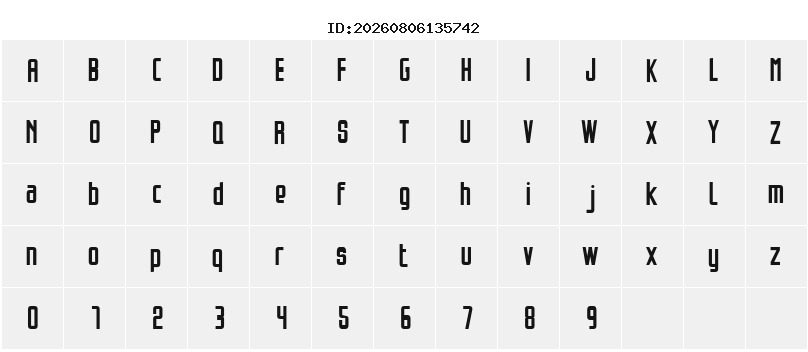
Opeln2001 Szeroki.ttf is a modern, elegant sans-serif font designed for ultimate readability and visual harmony. Perfect for branding, headlines, web design, and print materials.